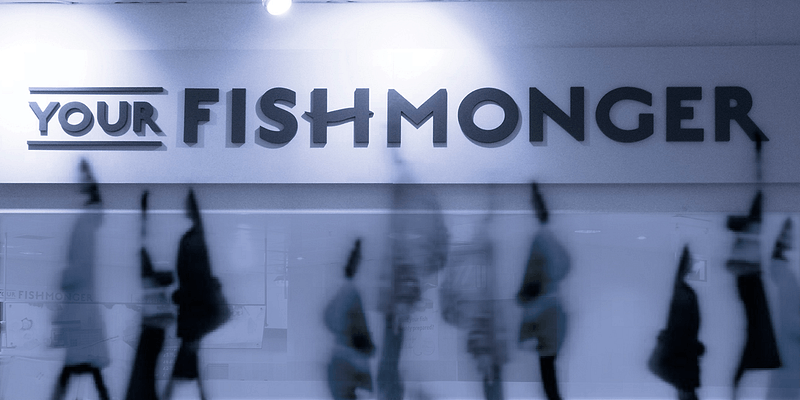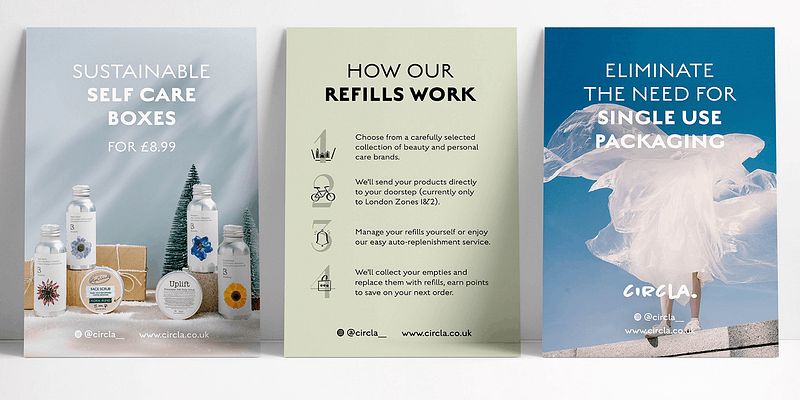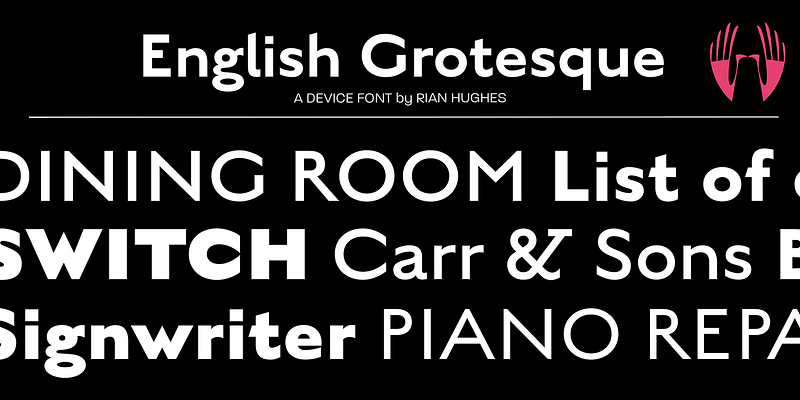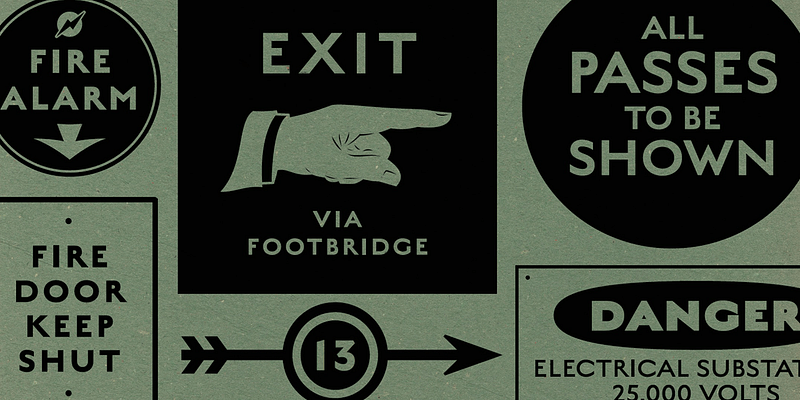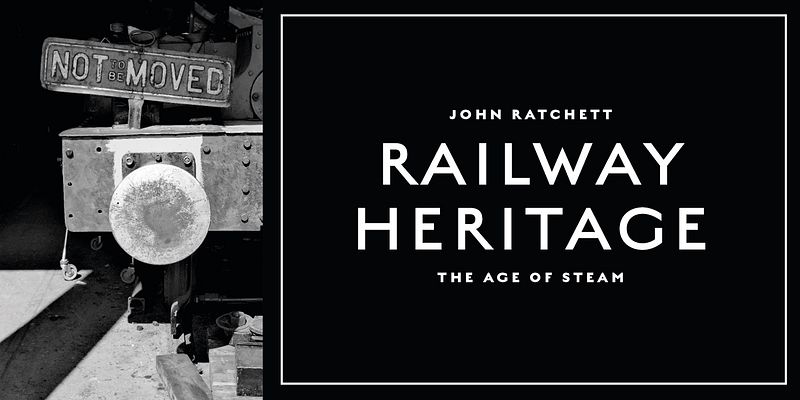
A traditional sans-serif that evokes the signwriter’s art, and English styles such as Gill and Johnston.
Type, design and imagery by English illustrator and typographer Rian Hughes.